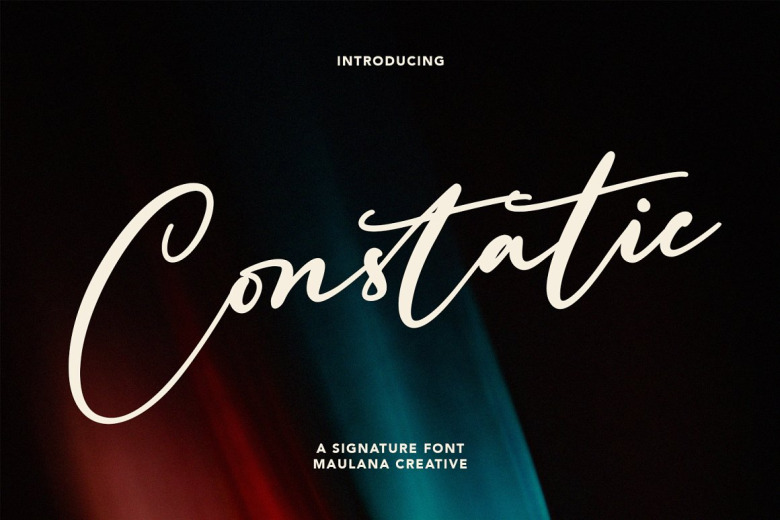
Constatic Font
Constatic is a simple yet elegant typeface that is specifically designed for handwritten signature styles. In a neat and jovial style with expressive personalities. It contains opentype facility and has couple of ligature. As an added bonus, here is another creative piece for you. Constatic’s signature font supports more than 100+ languages and includes multilingual.
This font is great for logo design, social media, movie or books title, short text letter, even for a long text invitation letter and good for secondary font with sans or serif. Create amazing work with Constatic signature script font.
Constatic Signature Script Font